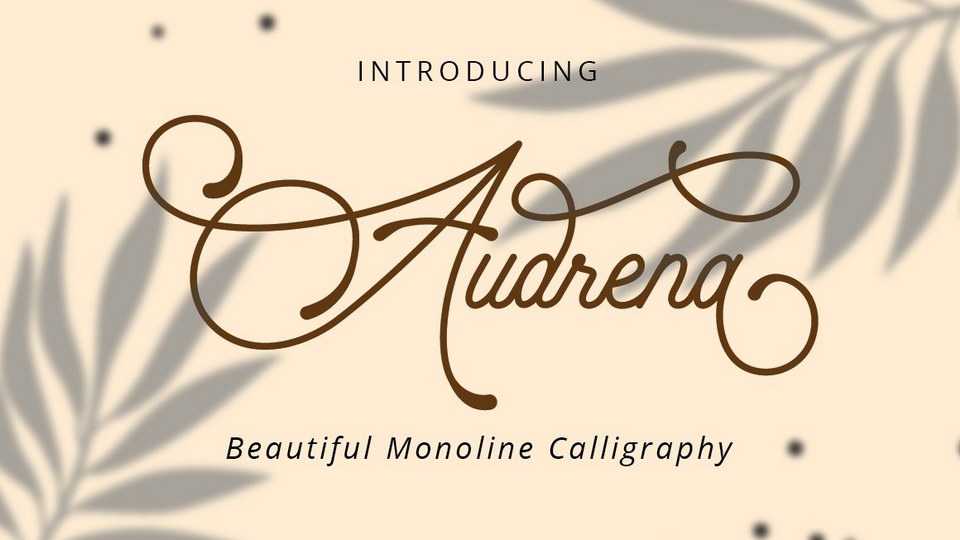
Download Audrena font, a beautiful monoline script typeface with a lovely, elegant and sweet look. Audrena is perfect for styling logos, stationery, wedding event, invitation, quote, social media, websites and so much more!